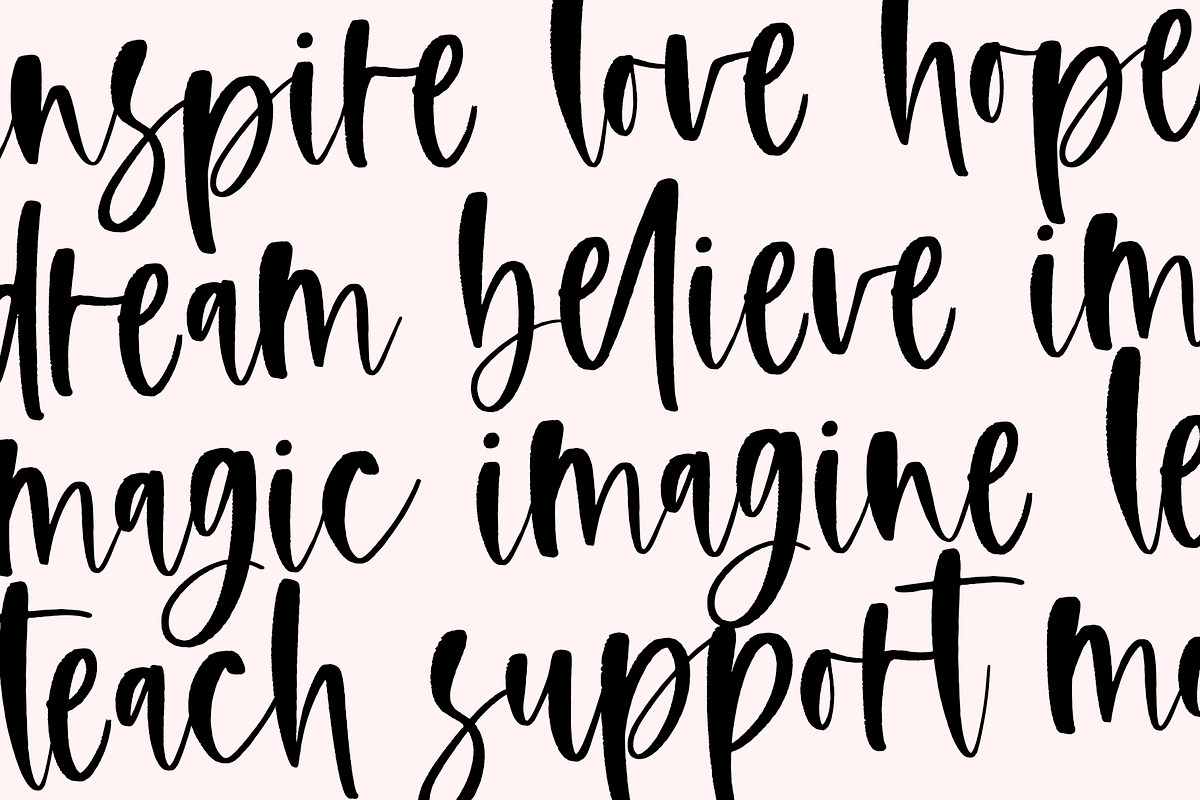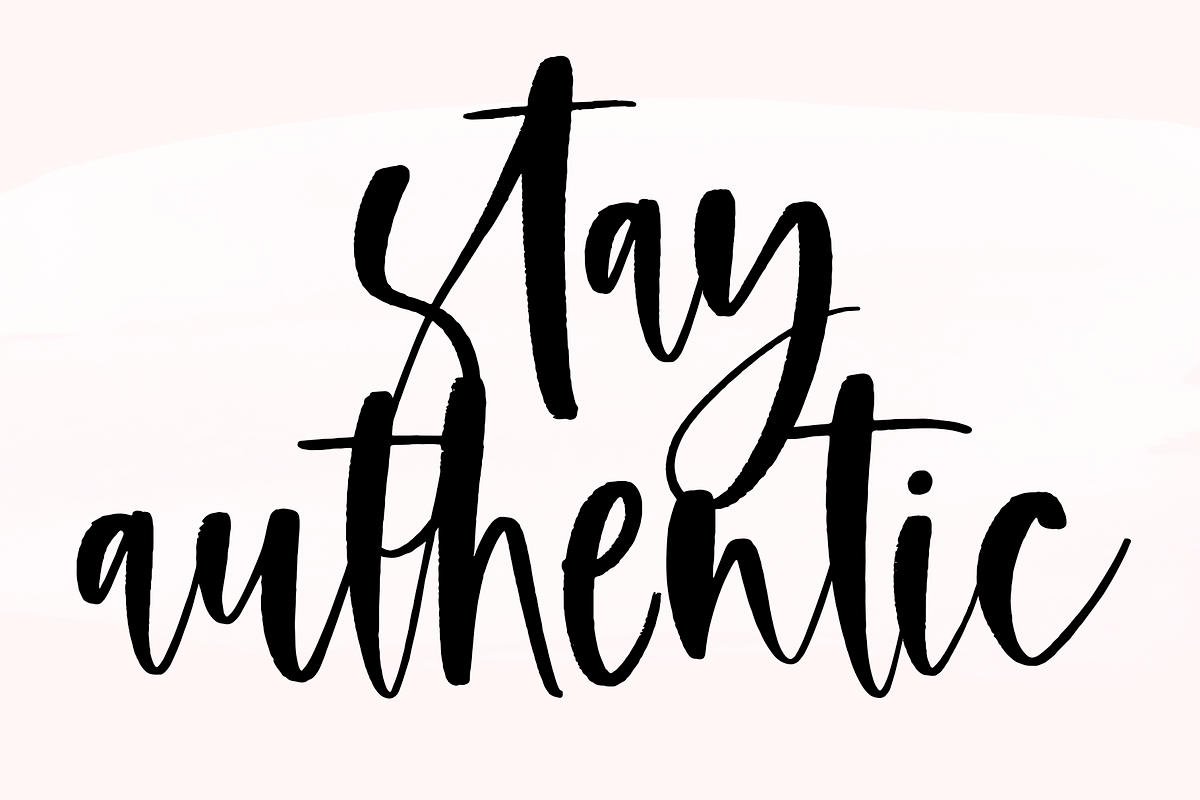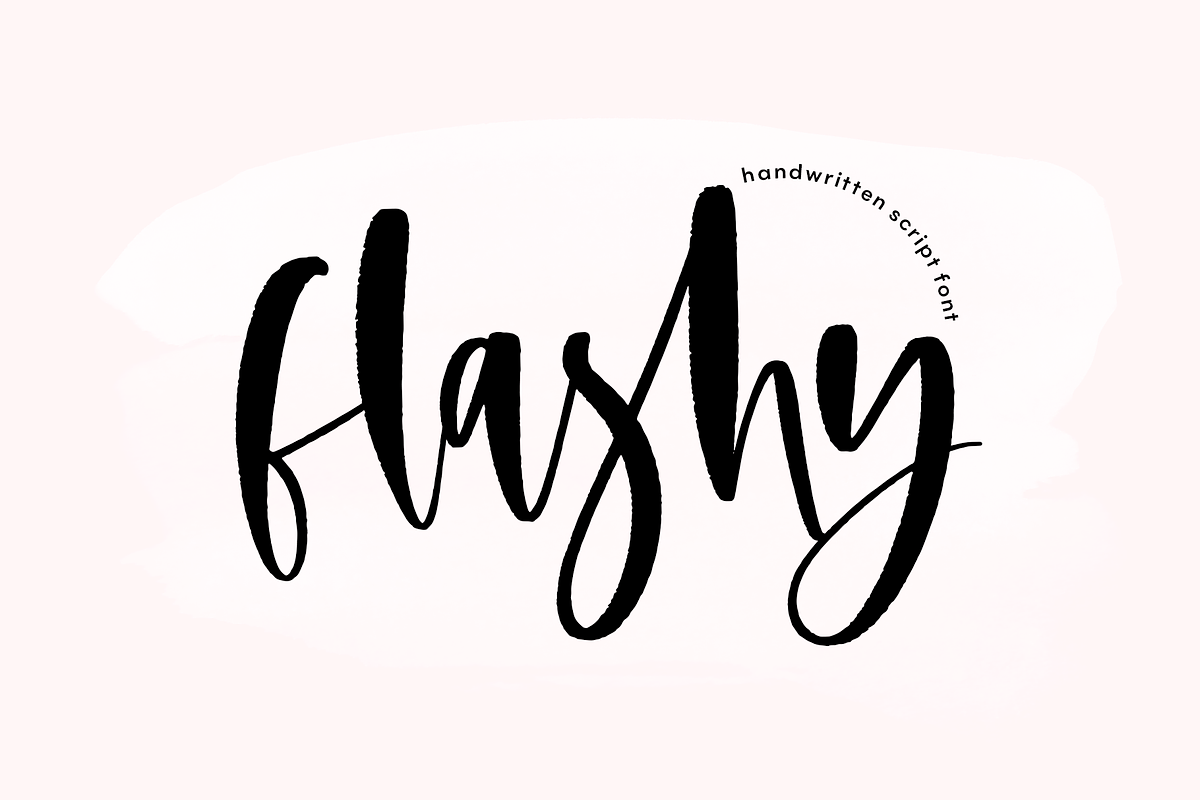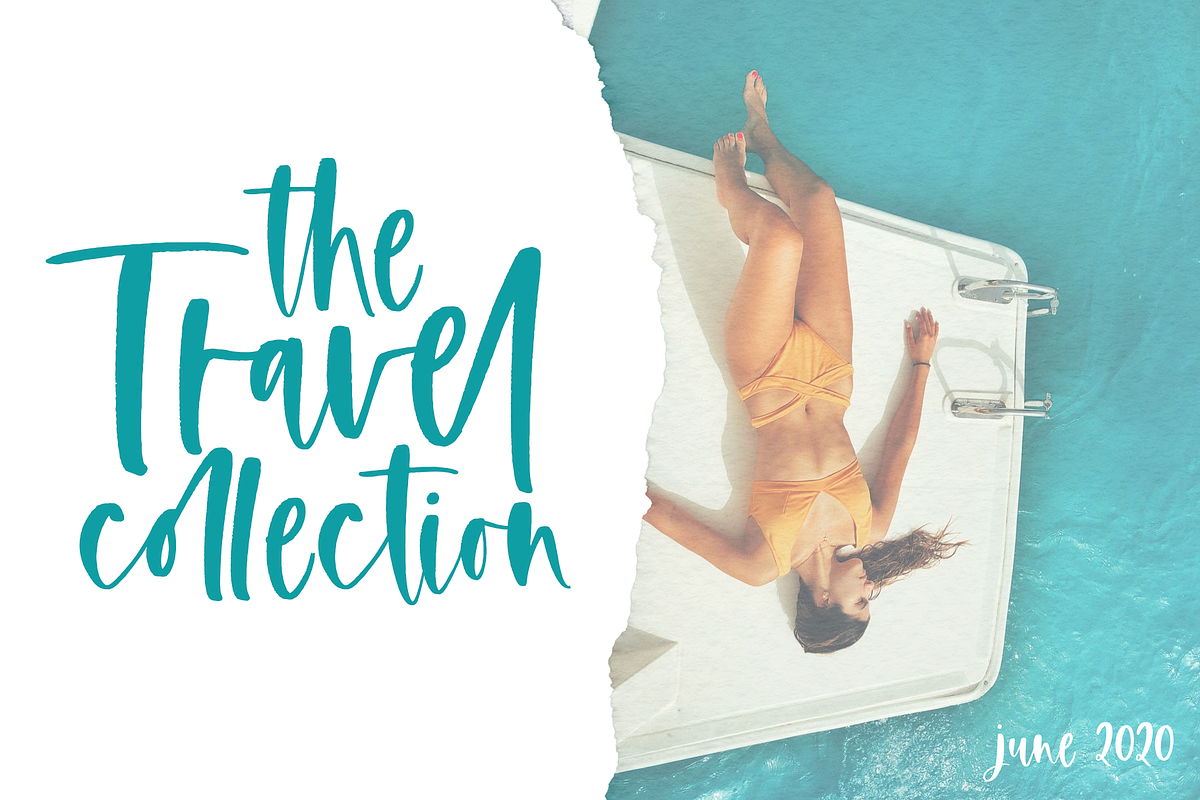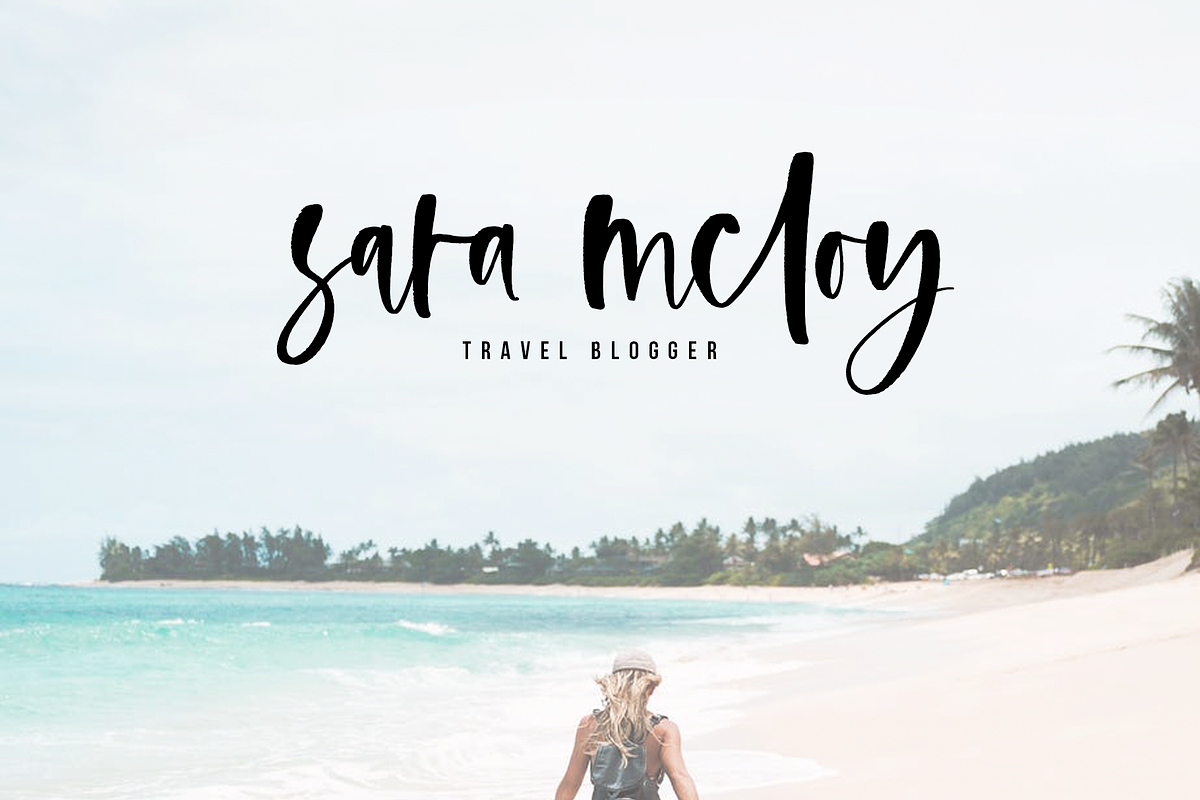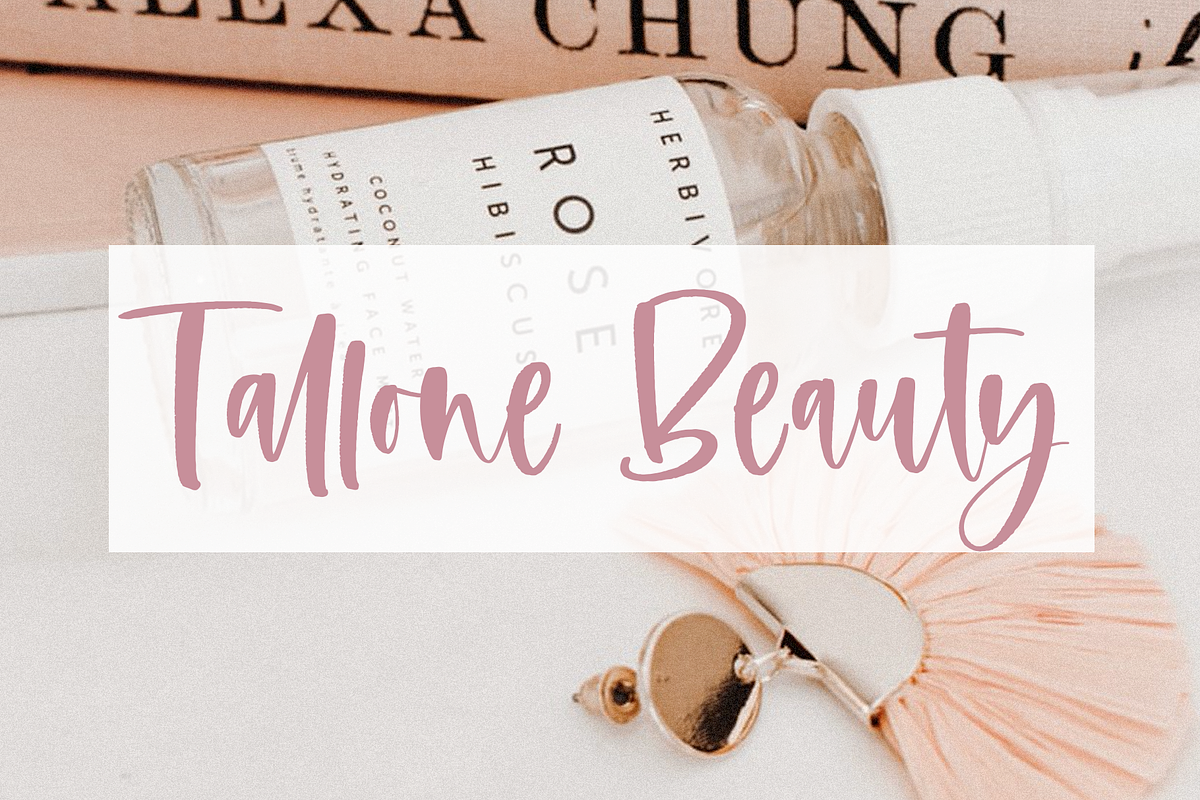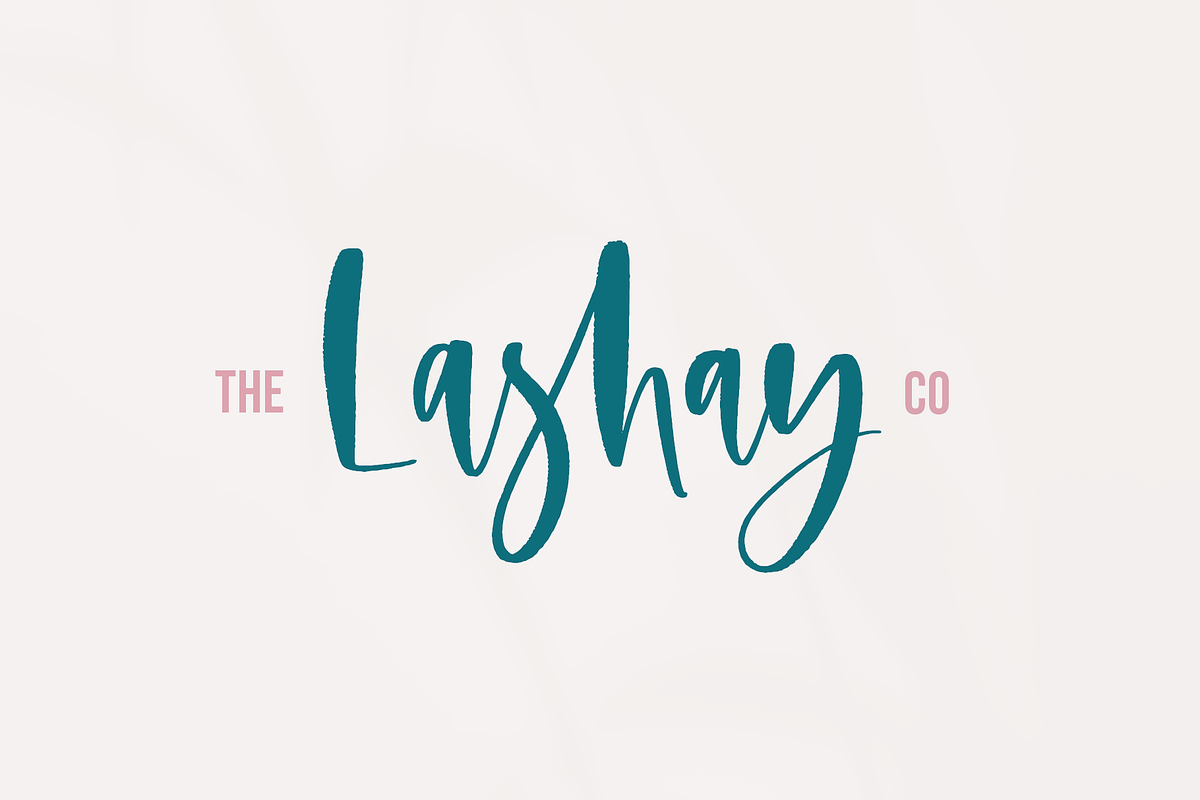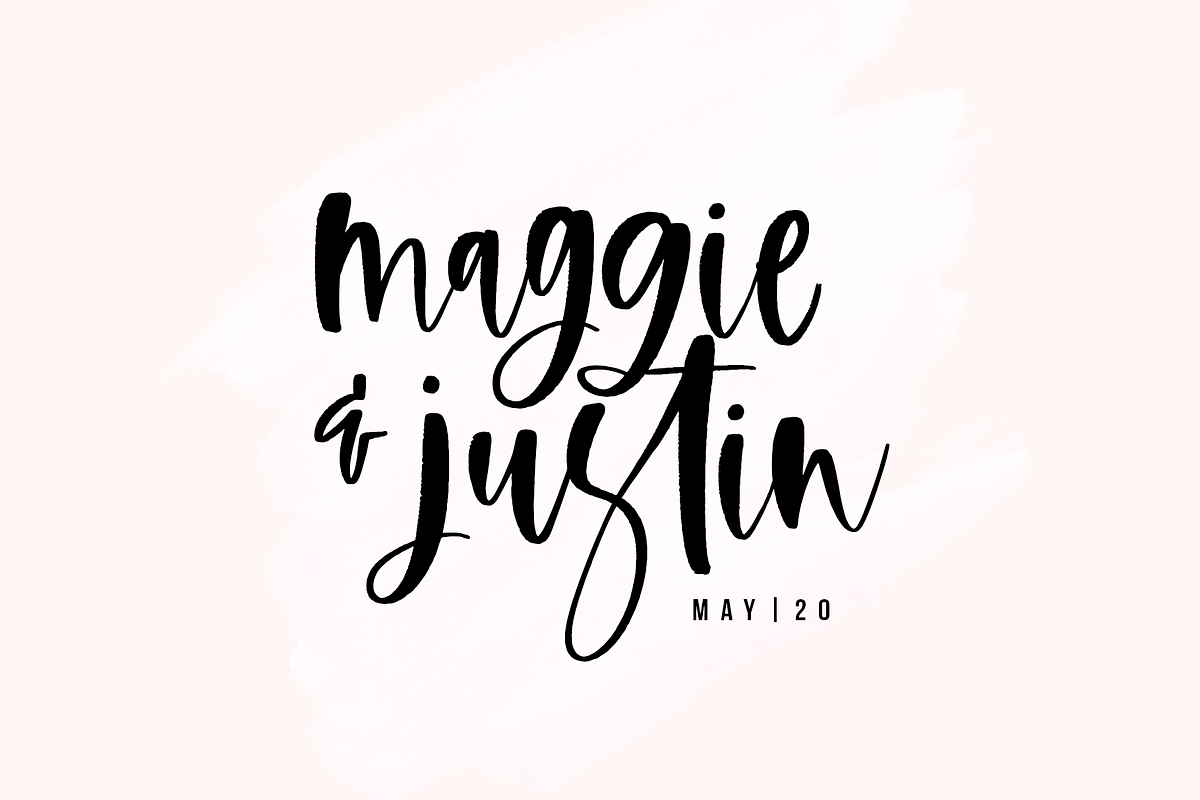
Flashy | Handwritten Script Font
Flashy is a handwritten brush font. It has an authentic brush texture making it perfect for branding and digital designs.
Use this modern calligraphy style font for logos, social media, websites, blogs, instagram, business cards, branding, and more!